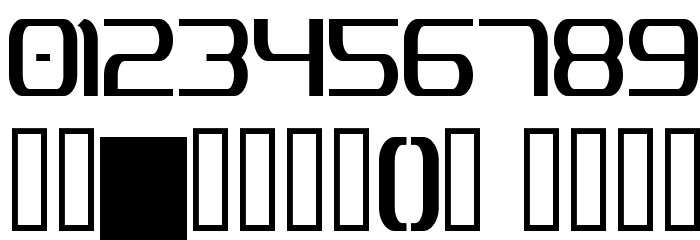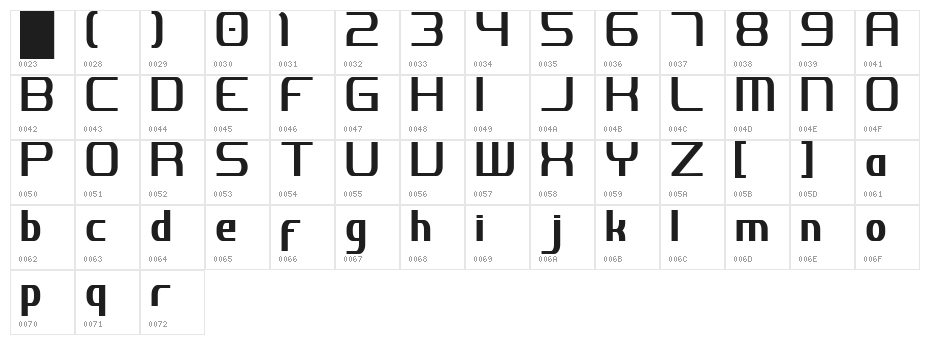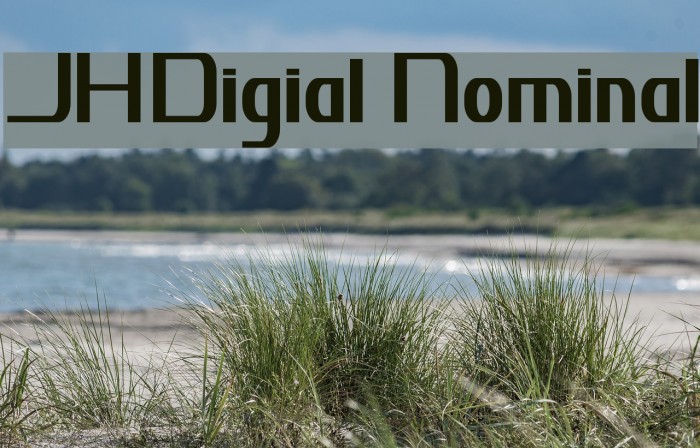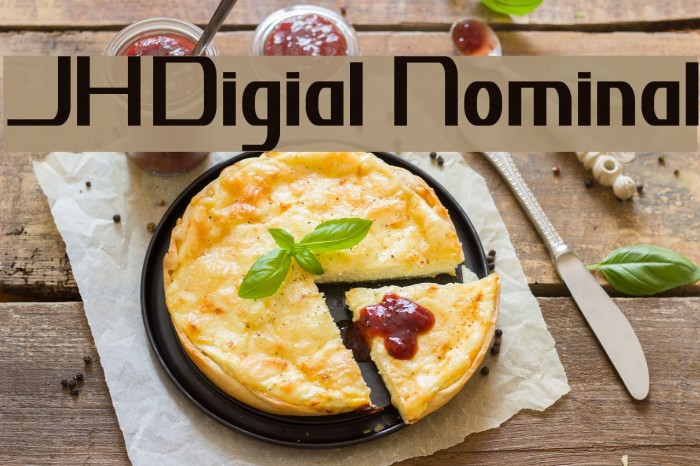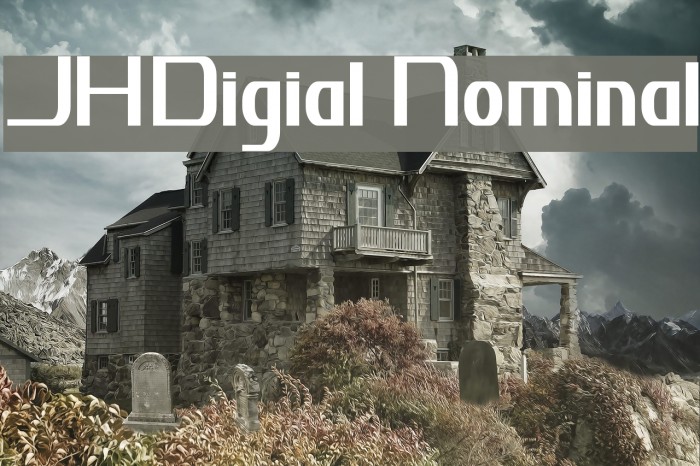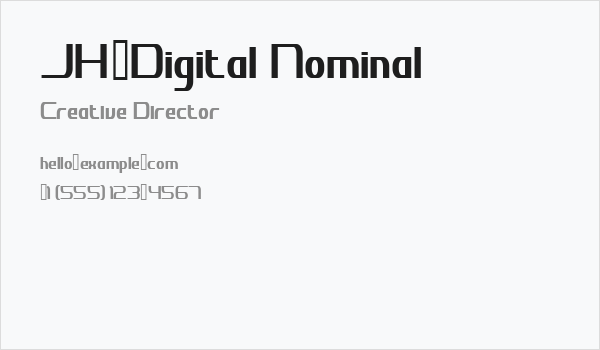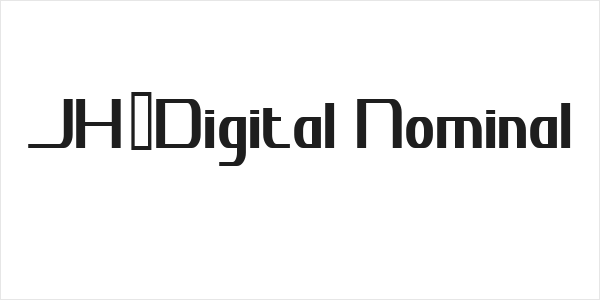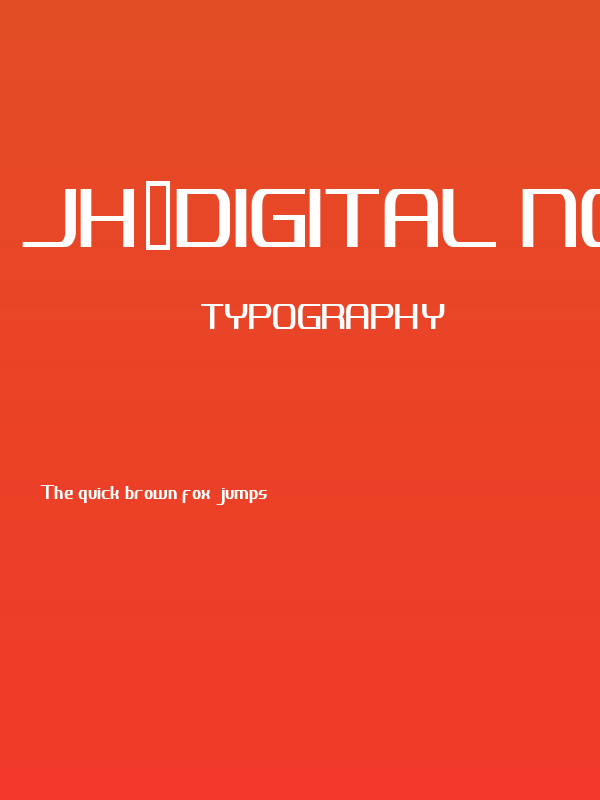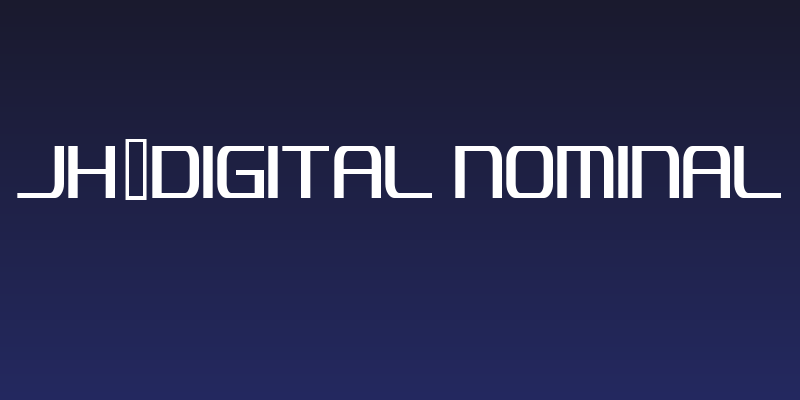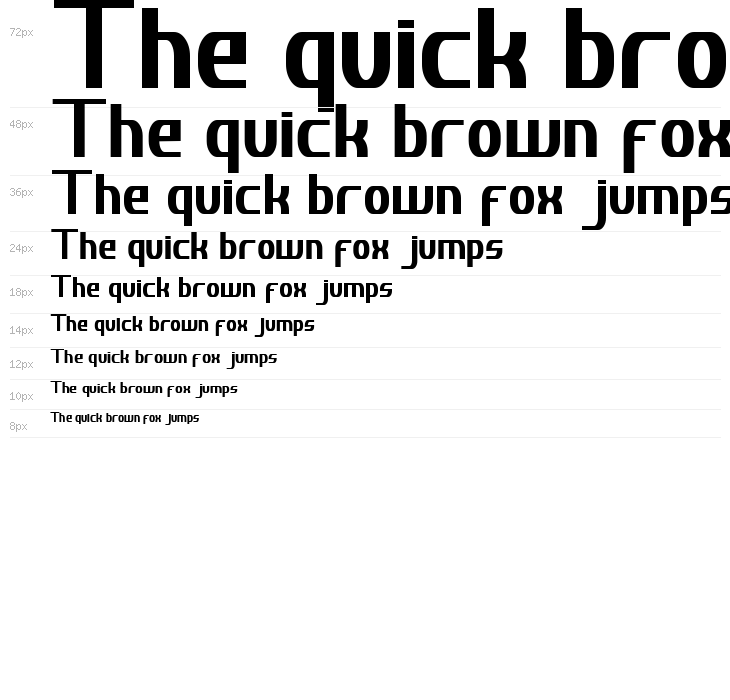
JH_Digital Nominal Font
JH_Digital Nominal Description
This font features a modern, digital aesthetic with a geometric structure. The uppercase letters are uniform and angular, giving a futuristic and technical feel. The lowercase letters maintain a similar style, with consistent line thickness and sharp corners. The numerals are distinct and align well with the overall design, emphasizing clarity and readability. Special characters are integrated seamlessly, maintaining the font's cohesive look. This font's design is ideal for projects that require a contemporary and digital appearance.
| Proposed Projects | Ideal for tech branding, digital interfaces, video game design, and futuristic-themed projects. |